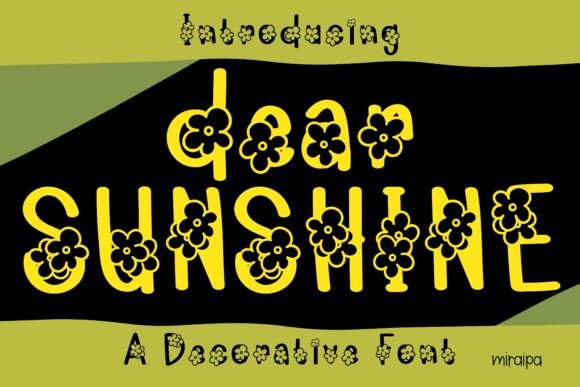
Introducing Dear Sunshine Font, the darling of decorative fonts, crafted with love by miraipa. This charming and adorable font exudes warmth and positivity, adding a touch of sunshine to any design.
With its delightful curves and playful personality, Dear Sunshine is perfect for adding a spark of joy to your creative projects. Imagine your words dancing on the page, each letter a little ray of sunshine, captivating your audience with its infectious charm.
Whether you're designing soap labels, greeting cards, invitations, or social media posts, Dear Sunshine will elevate your designs to new heights. Its versatility knows no bounds, making it the perfect choice for a wide range of projects.
Picture the smiles on your customers' faces as they receive their soap bars adorned with Dear Sunshine's whimsical letters. The playful font will add a touch of delight to their daily routine, turning ordinary hygiene into a cheerful experience.
And when you use Dear Sunshine for your greeting cards, your messages will radiate warmth and affection, leaving a lasting impression on your loved ones. The font's cheerful spirit will convey your heartfelt sentiments in a way that words alone cannot express.